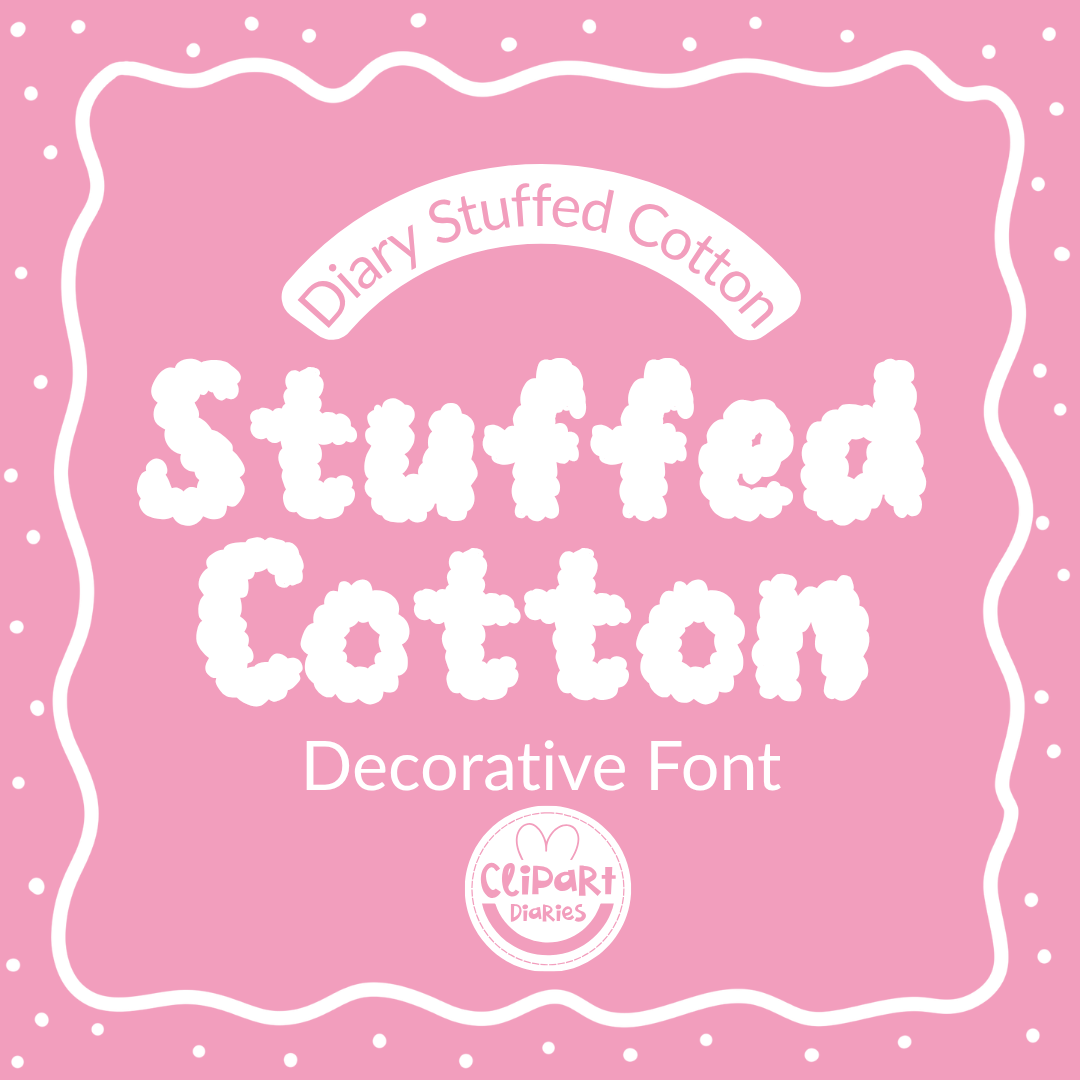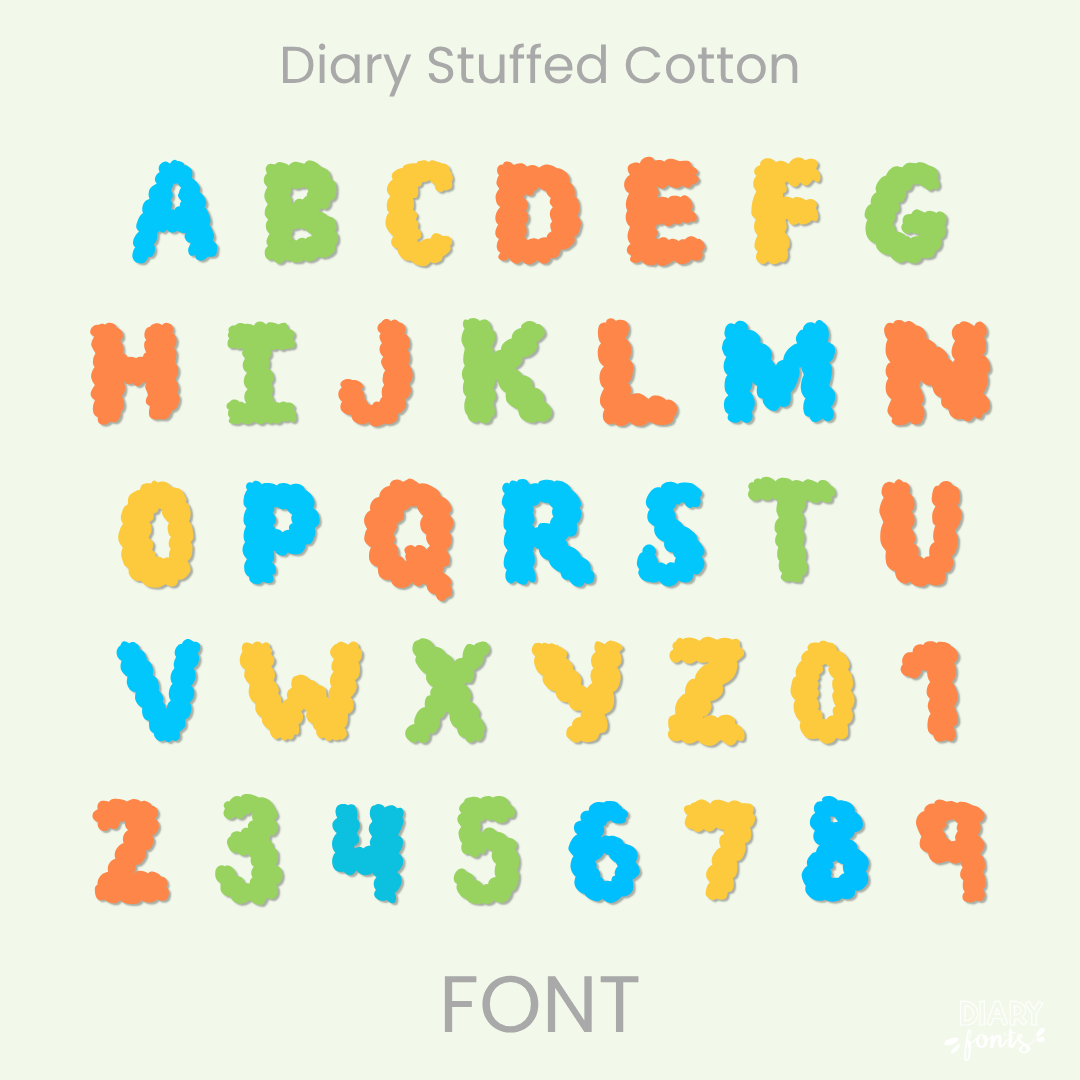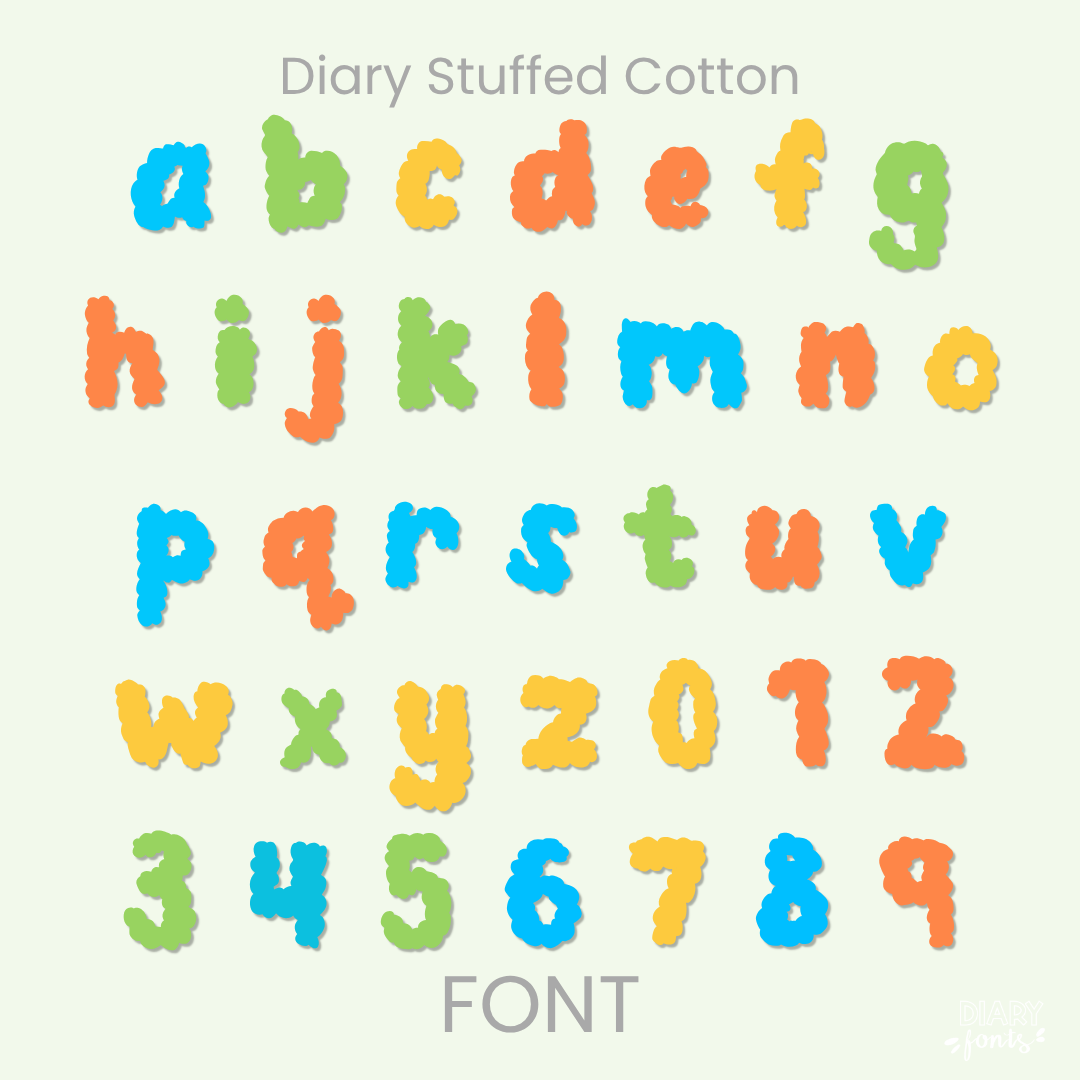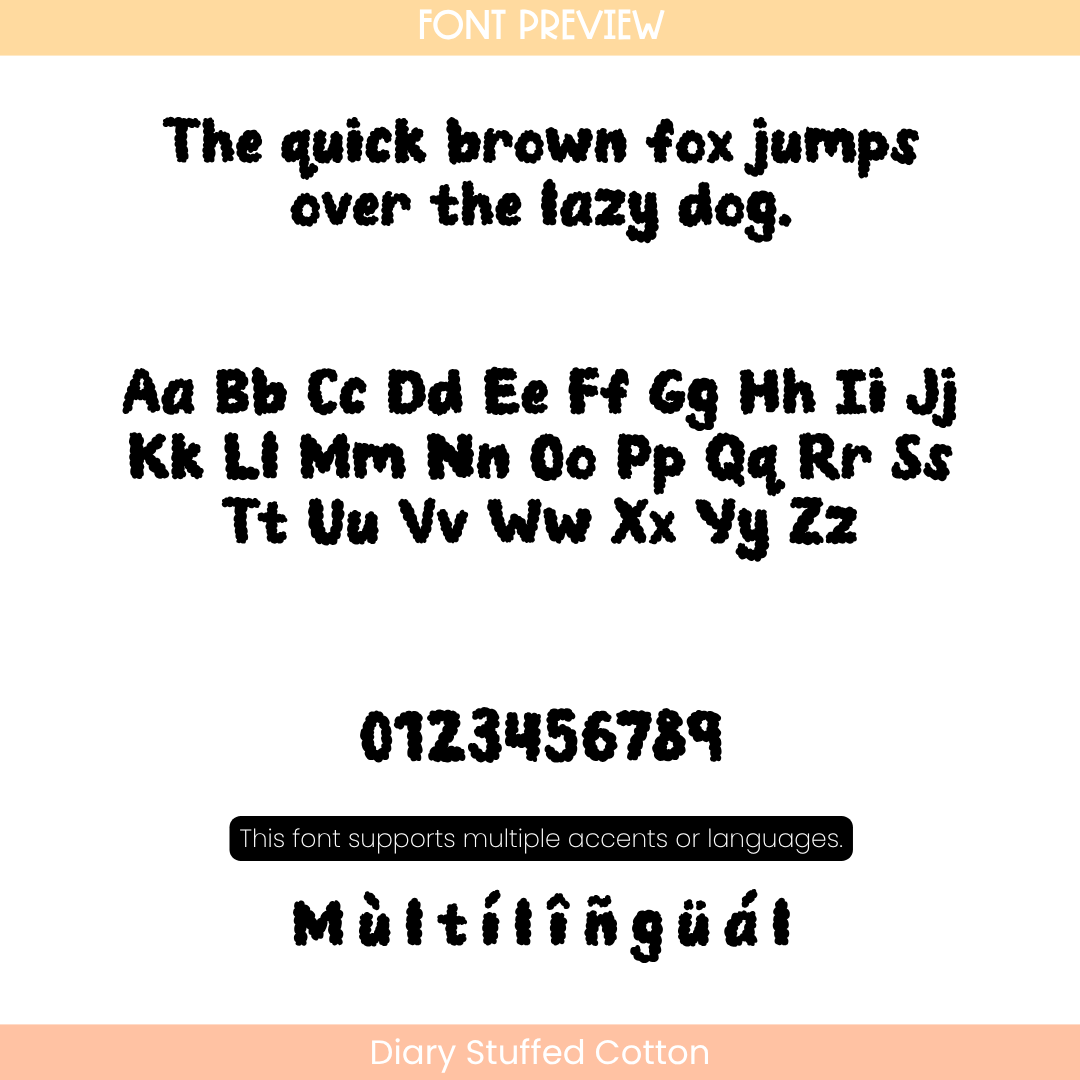
If you’ve been looking for a go-to bold handwritten font that packs a massive visual punch while keeping your resource layouts looking incredibly sweet and tidy, Diary Stuffed Cotton is about to become your new absolute favorite. This unique decorative font features a solid, heavy-weighted design filled completely with a fluffy, cloud-like cotton texture. Because these delightful hand-drawn letters maintain clear spacing and stand uniform straight along the baseline, it completely cuts out the background noise—giving you a bold, textured headline style that is an exceptionally clear and legible worksheet typography choice for your sweet students.
It is an absolute dream choice for designing high-impact bulletin boards, soft presentation slide titles, cozy winter or weather units, elementary science worksheets, and standout cover pages for your digital teacher planner. Inside the download, you’ll get a full set of solid fluffy uppercase and lowercase print letters, matching textured numbers, and multi-accent marks for complete multilingual support. It drops right into Canva, MS Office, or Adobe on your desktop, and pairs beautifully with Procreate and GoodNotes on your iPad. Whether you’re prepping daily activities for your own sweet classroom or designing fresh new commercial-use educational resources for your online teacher shop, this chunky display heading font adds a touch of confident, friendly style to your creative toolkit.